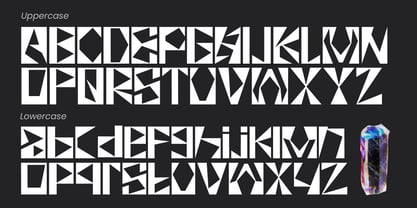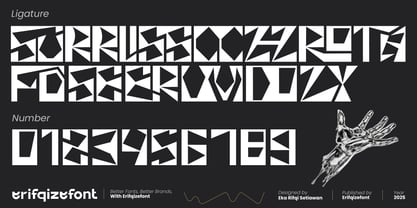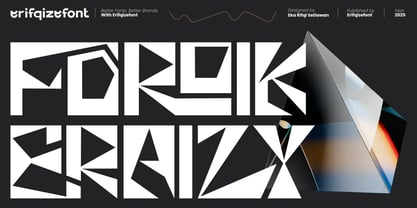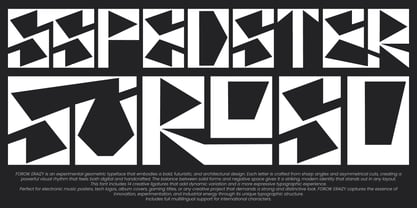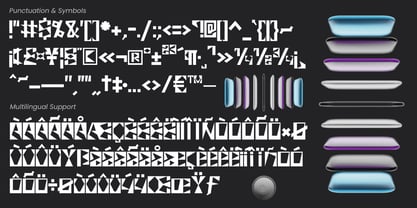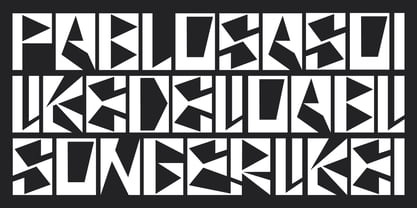
Foroik Eraizy
by Erifqizefont
The Foroik Eraizy Font Family was designed by Eka Rifqi Setiawan and published by Erifqizefont. Foroik Eraizy contains 1 styles. More about this family
FOROIK ERAIZY is a bold geometric display font with a strong futuristic vibe. Built with sharp angles, asymmetric cuts, and experimental shapes, this font delivers a striking and innovative look for modern design projects. Perfect for tech logos, electronic posters, game titles, album covers, and creative branding, FOROIK ERAIZY stands out with its unique letterforms and structural aesthetic. It also includes 14 stylish ligatures for added typographic creativity and full multilingual support for international use.
About Erifqizefont
Introducing Erifqizefont, a Foundry led by Eka Rifqi Setiawan. Originating from Eka's experience as an Icon Designer, Erifqizefont specializes in bold, symmetrical Display Fonts with futuristic elements, occasionally exploring retro and whimsical styles. Based in Indonesia, Erifqizefont integrates the nation's cultural heritage into its designs. As a sole proprietor, Eka focuses on crafting superior, unique fonts, setting Erifqizefont apart in the industry.